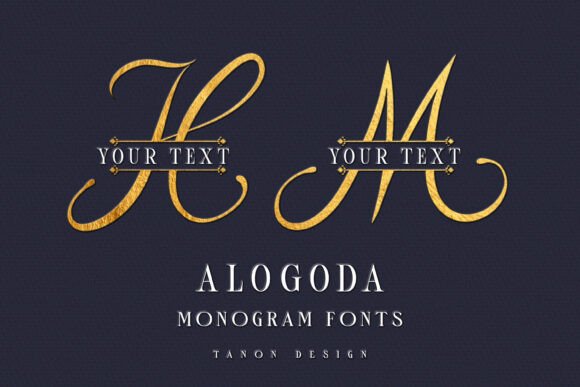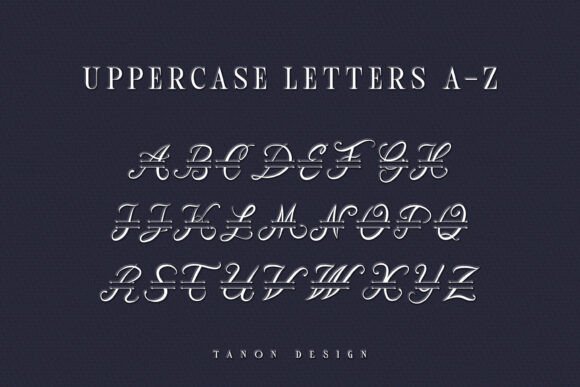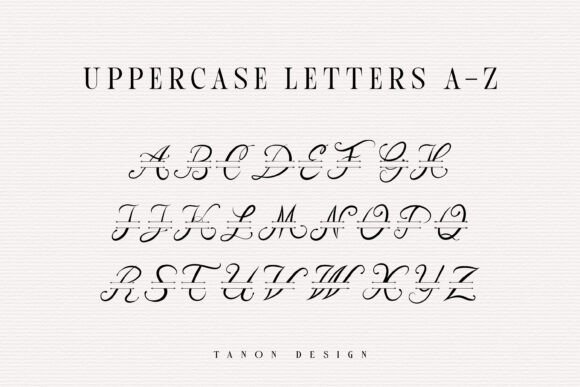
Alogoda Monogram Font: Elevate Your Designs with a Touch of Luxury and Cozy Charm
Are you a designer or crafter looking for a font that can add a touch of luxury and coziness to your projects? Look no further than the Alogoda Monogram font. This charming font is perfect for creating stunning logos, branding materials, and designs that exude warmth and sophistication. In this article, we’ll explore the features and benefits of the Alogoda Monogram font and how it can elevate your designs to the next level.
What is Alogoda Monogram Font?
Alogoda Monogram font is a beautifully crafted font designed specifically for logo and branding purposes. Its unique and elegant design makes it perfect for creating stunning monograms, logos, and typography that can add a touch of luxury and coziness to your designs. The font features intricate details and a classic feel that will make your designs stand out from the crowd.
Key Features of Alogoda Monogram Font
- Charming Design: The Alogoda Monogram font features a charming design that is perfect for creating stunning logos and branding materials.
- Luxury and Cozy Feel: The font has a luxury and cozy feel that will add warmth and sophistication to your designs.
- Perfect for Various Projects: The Alogoda Monogram font is versatile and can be used for various projects, including t-shirt designs, mug designs, digital designs, crafts, cards, and more.
- Elegant and Classic: The font has an elegant and classic feel that will make your designs stand out from the crowd.
Benefits of Using Alogoda Monogram Font
Using the Alogoda Monogram font can bring numerous benefits to your designs. Here are some of the advantages of using this font:
- Unique and Distinctive: The Alogoda Monogram font is unique and distinctive, making it perfect for creating stunning logos and branding materials that stand out from the crowd.
- Versatile: The Alogoda Monogram font is versatile and can be used for various projects, making it a great addition to your font collection.
- High-Quality: The font is of high quality, ensuring that your designs look professional and polished.
Project Ideas Using Alogoda Monogram Font
The Alogoda Monogram font is versatile and can be used for various projects. Here are some project ideas to get you started:
- T-Shirt Designs: Create stunning t-shirt designs using the Alogoda Monogram font.
- Mug Designs: Design beautiful mug designs that feature the font.
- Digital Designs: Use the font for digital designs, such as social media graphics and blog posts.
- Crafts: Use the font for craft projects, such as card making and scrapbooking.